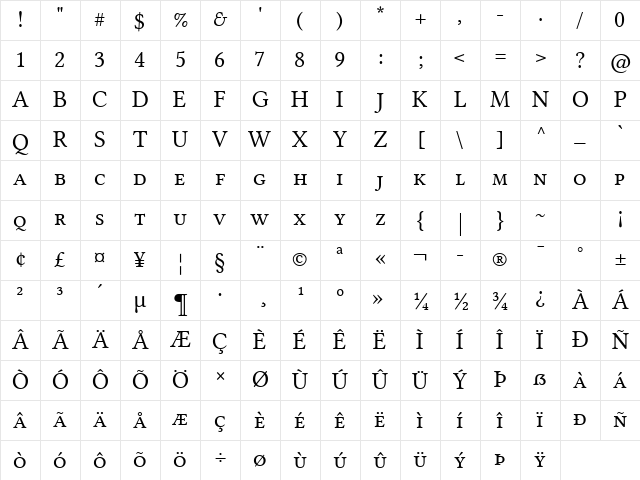
Linux Libertine Capitals Small Caps
Style: Small Caps
Foundry: Philipp H. Poll
Designer: Philipp H. Poll
Design Context for Linux Libertine Capitals
Linux Libertine Capitals is a composed and adaptable typeface that performs quietly and consistently across a wide range of design contexts.
Pro Tip: Use Linux Libertine Capitals in both headline and body roles to test its range before committing to a single application.